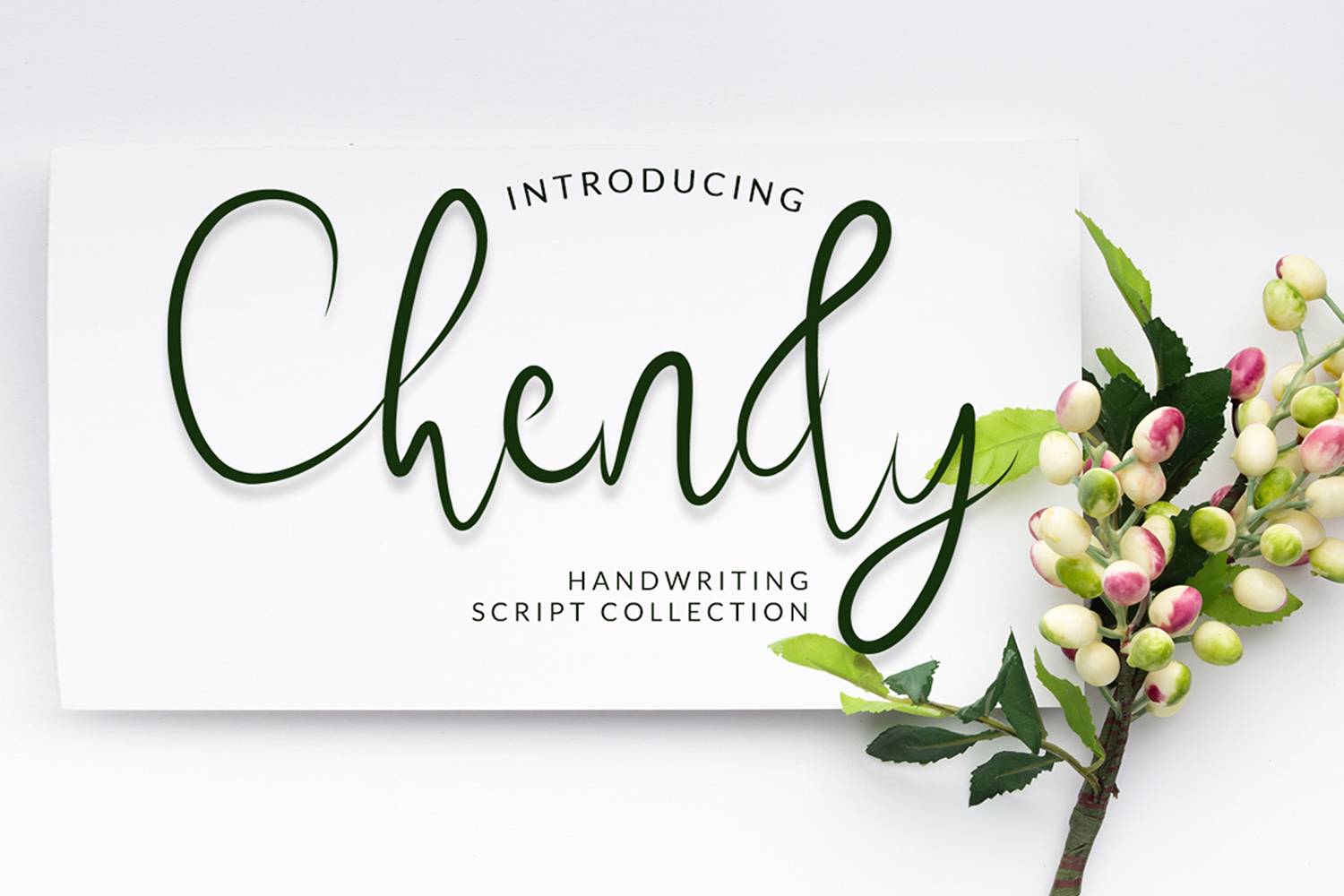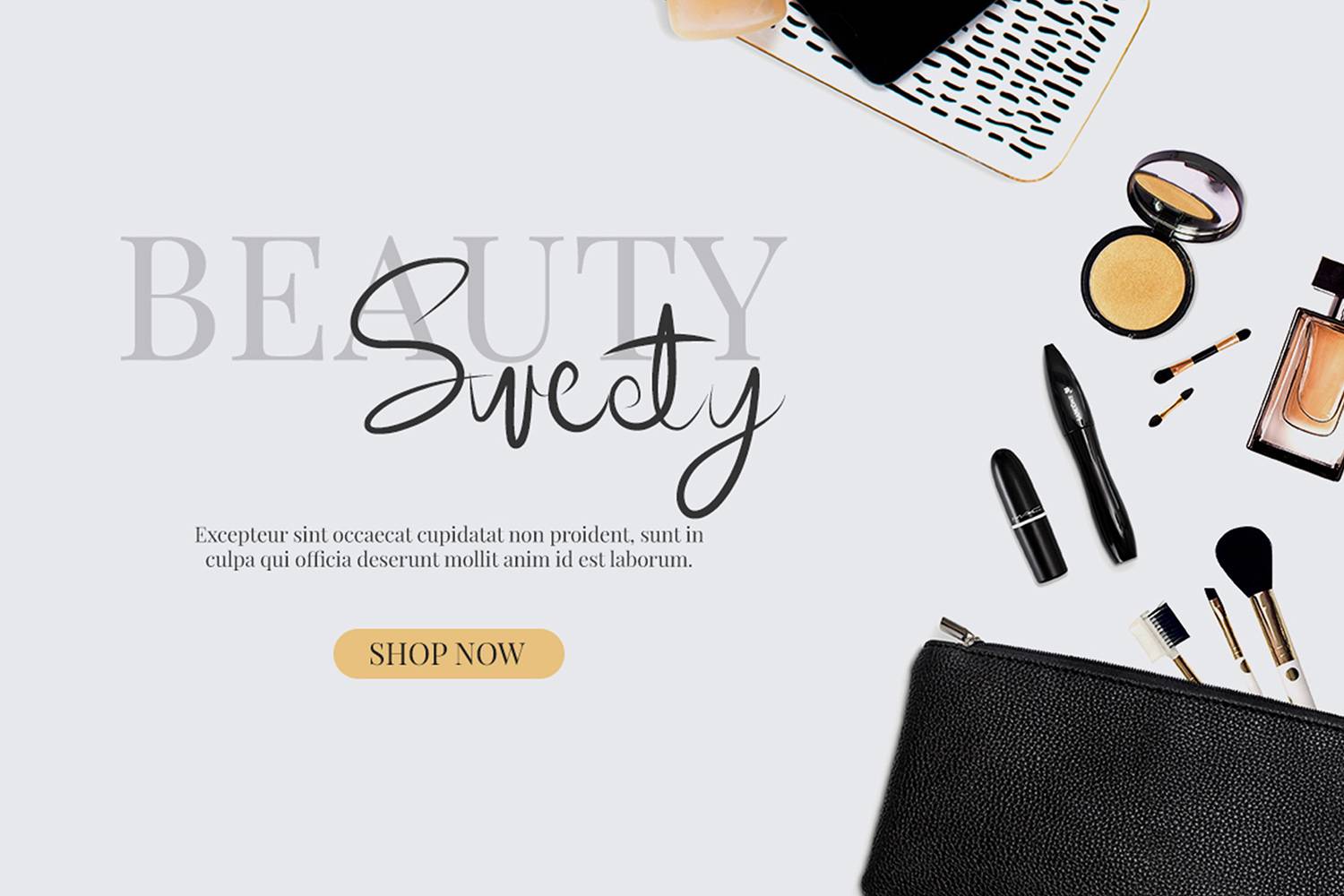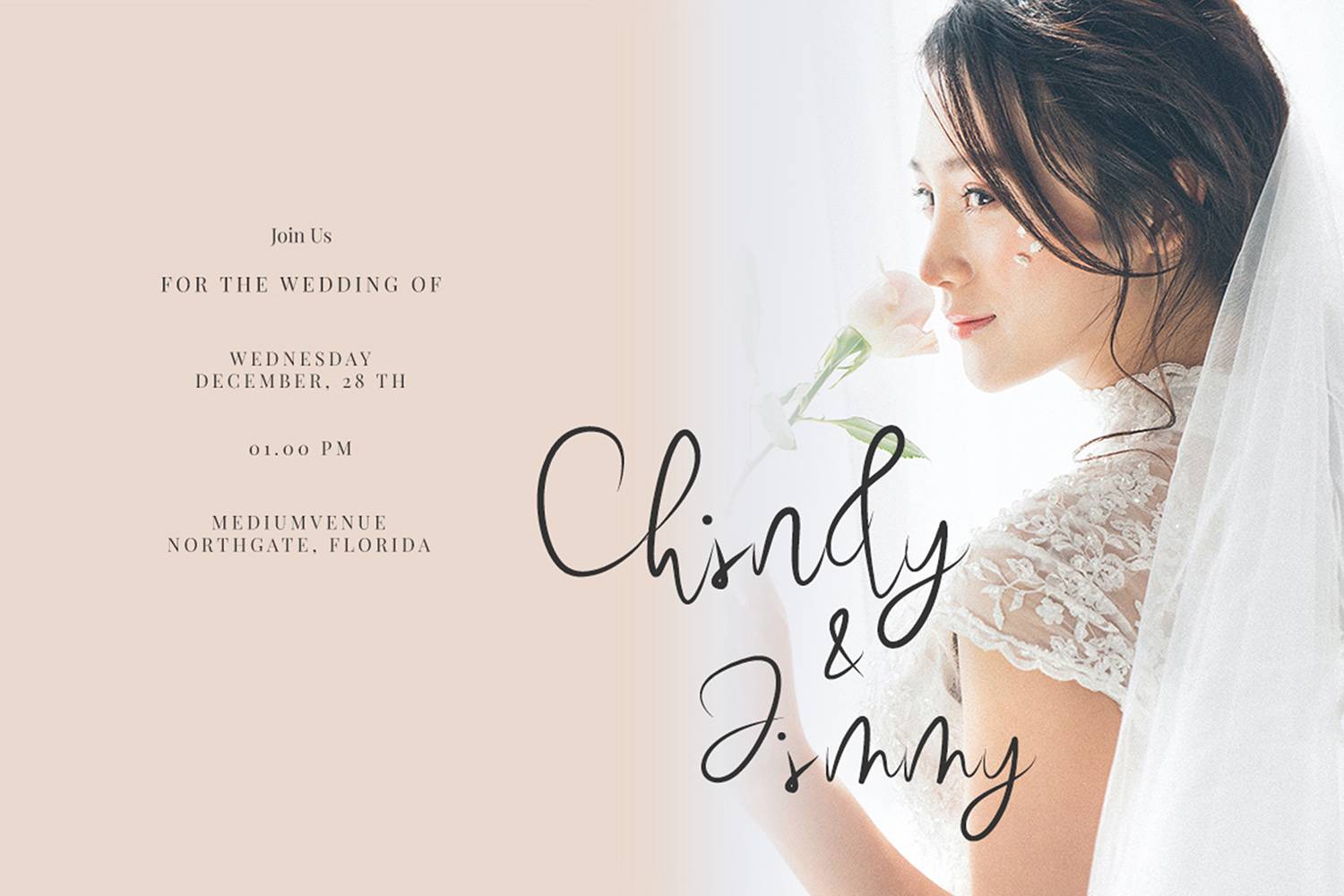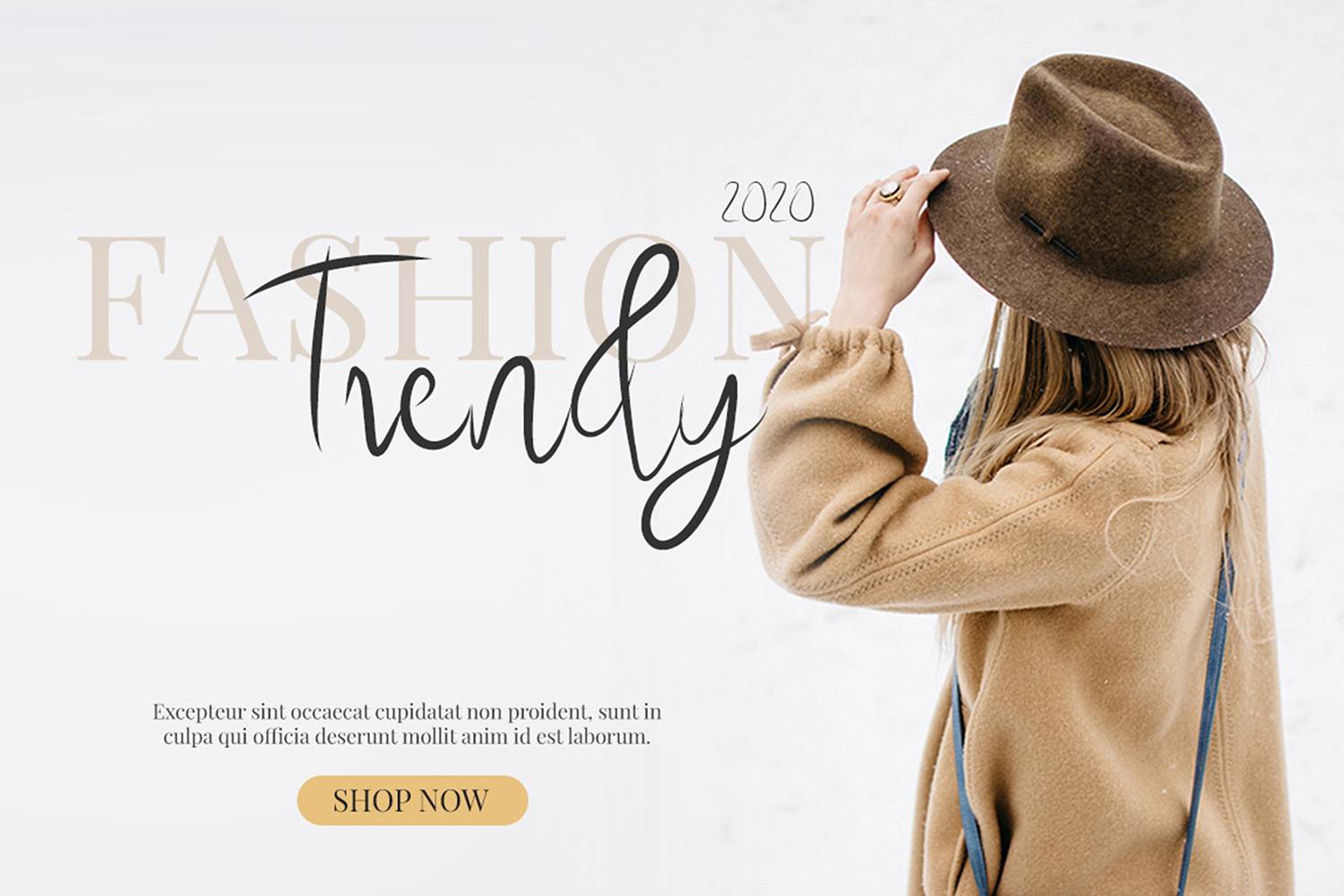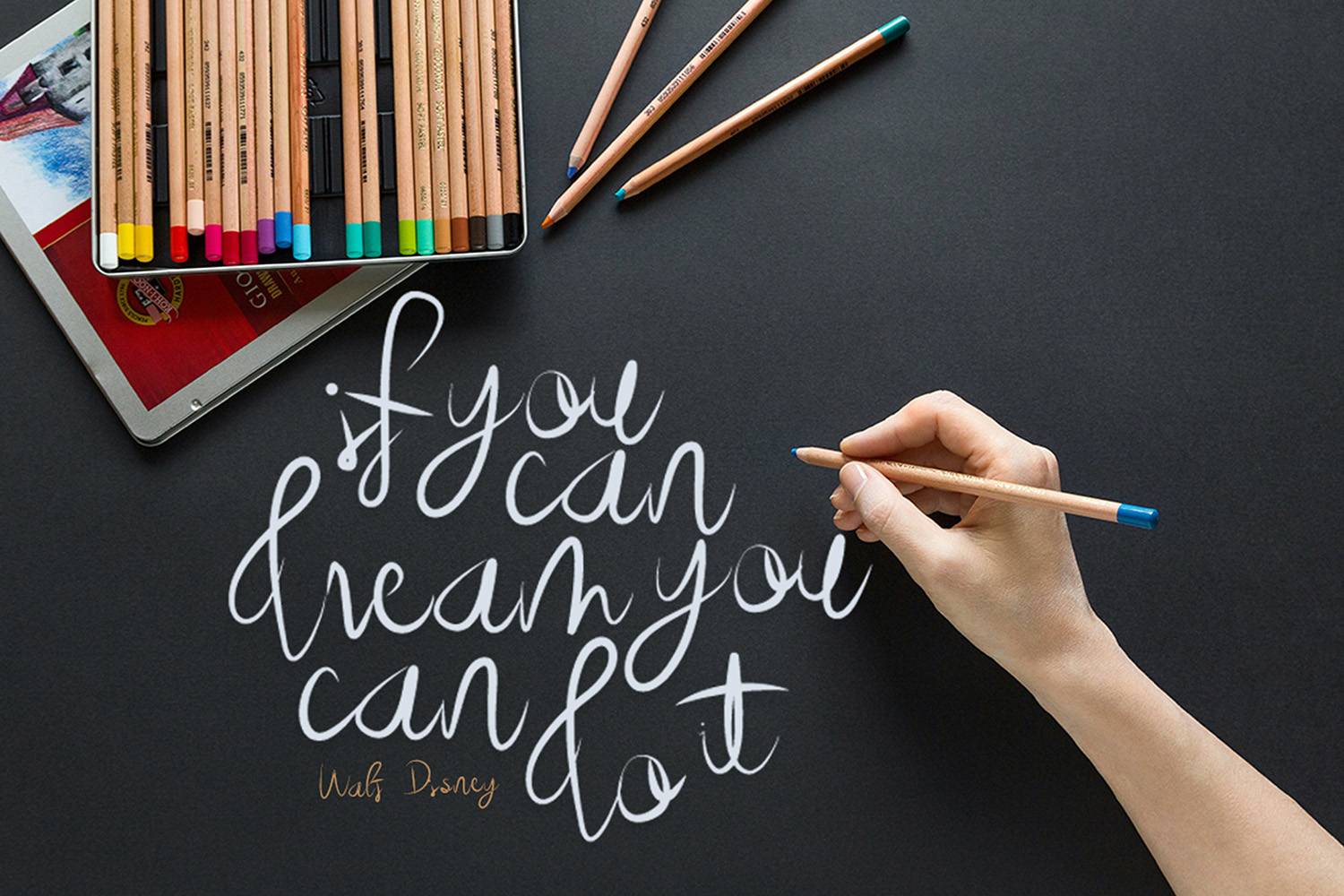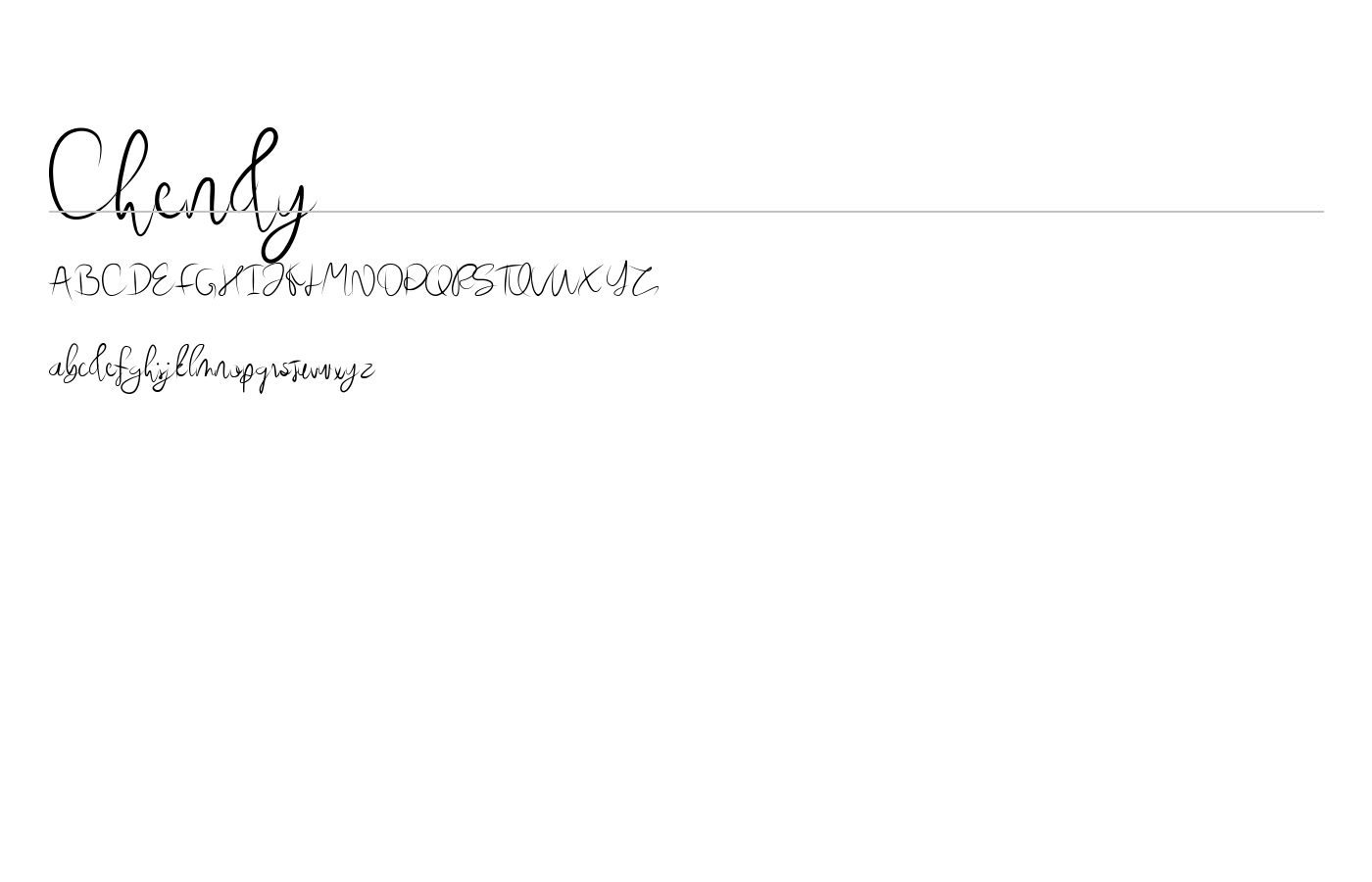
Chendy Font is a delicate and elegant script typeface with thin, flowing strokes that mimic natural handwriting. Its fine, slightly whimsical letterforms offer a light and airy feel, making it perfect for projects that need a personal, artistic touch such as invitations, branding for creative businesses, and stylish editorial work. This font’s graceful, handwritten style adds a charming and intimate atmosphere without sacrificing readability.
Chendy Font
About Chendy Font
| Font family | Chendy Font |
| Designer | rana creative |